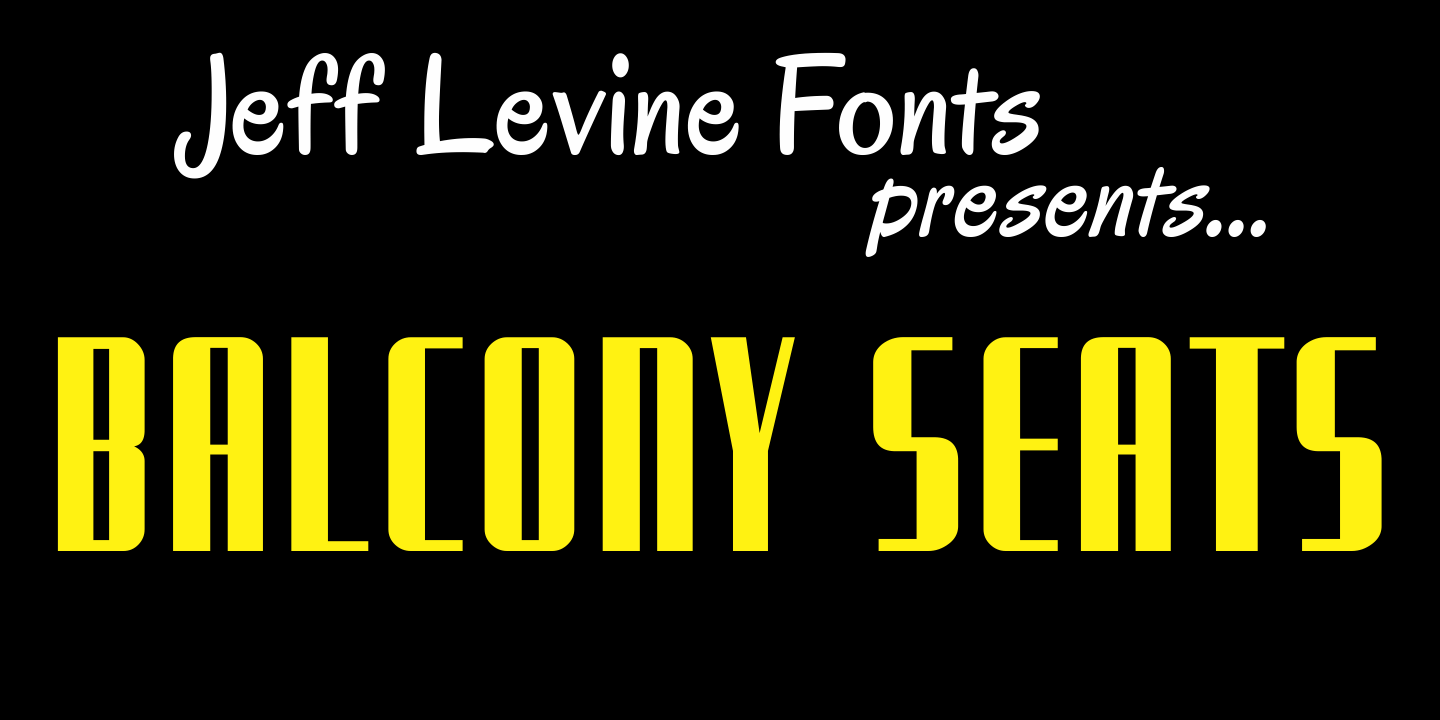
Balcony Seats
Balcony Seats JNL is a different take on Jeff Levine's Aisle Seats JNL. The original font was modeled from Redikut die-cut cardboard letters - used in the 1940s and 1950s for display and show card work).
Although the basic letter shapes are similar, the horizontal stroke weights have been narrowed, providing a type variation with a classic Art Deco "thick and thin" look.